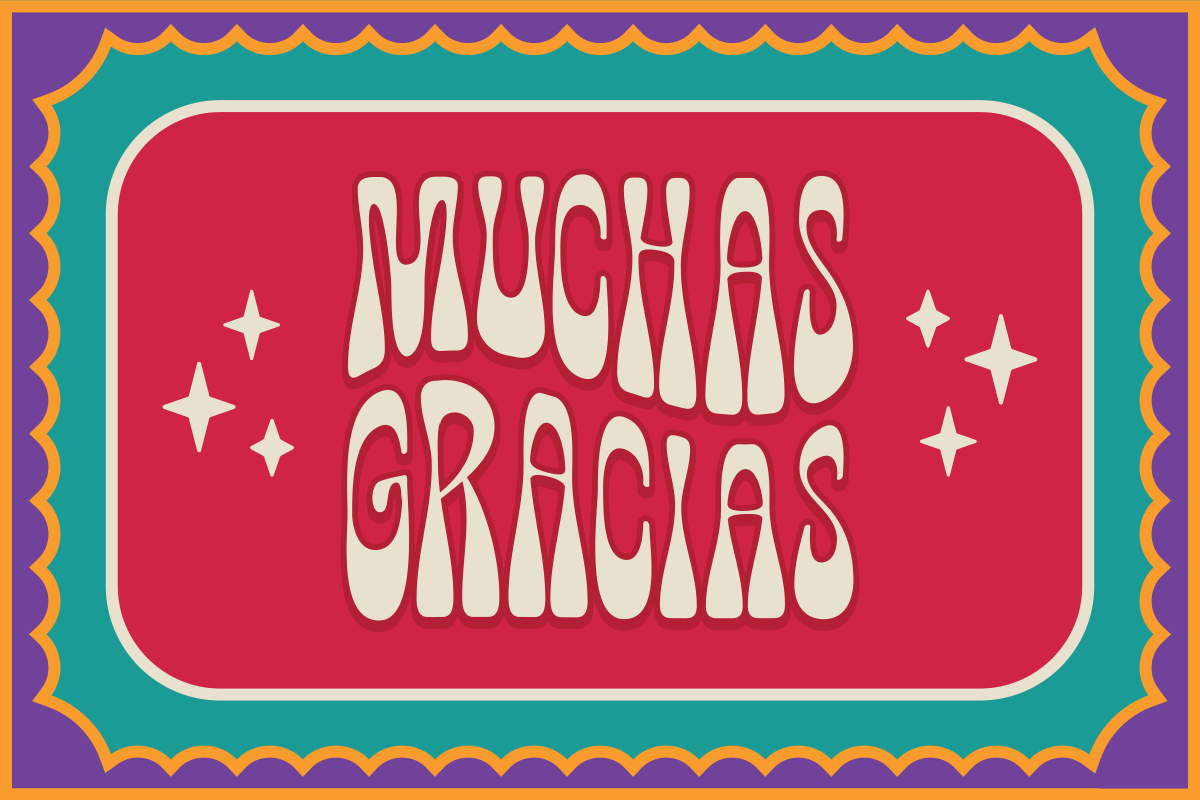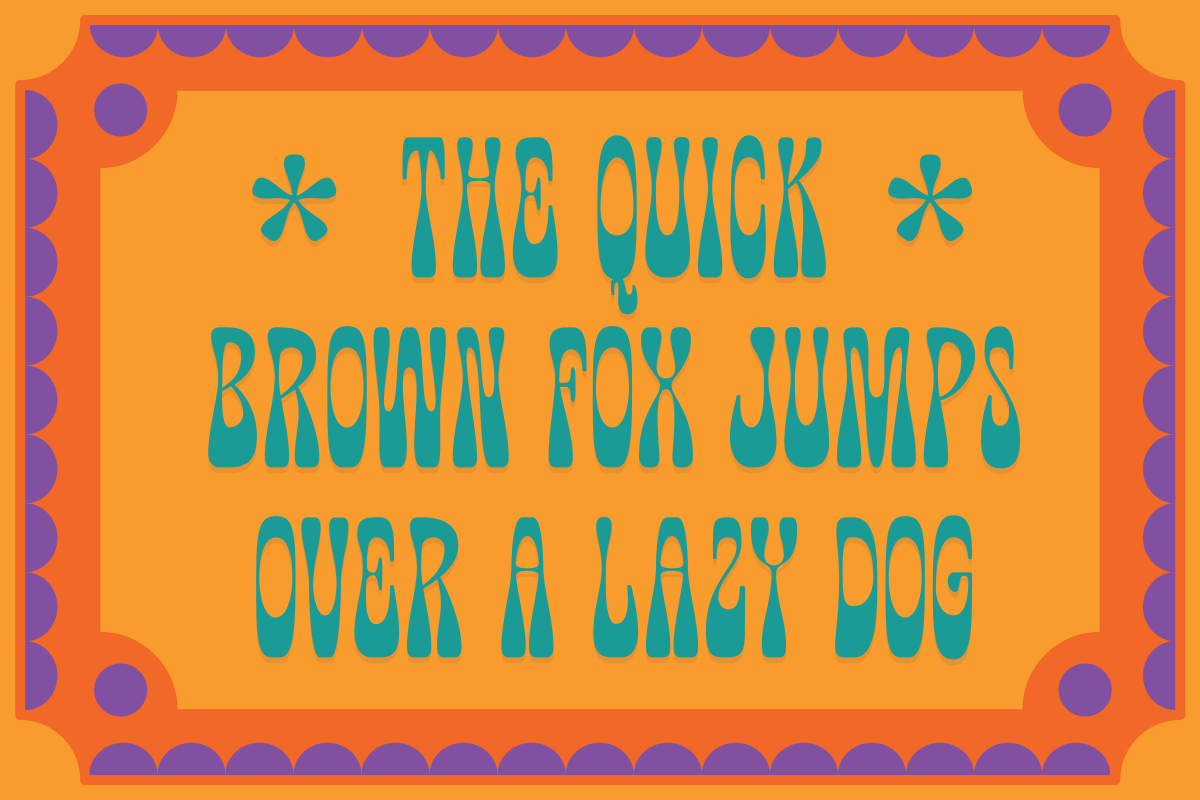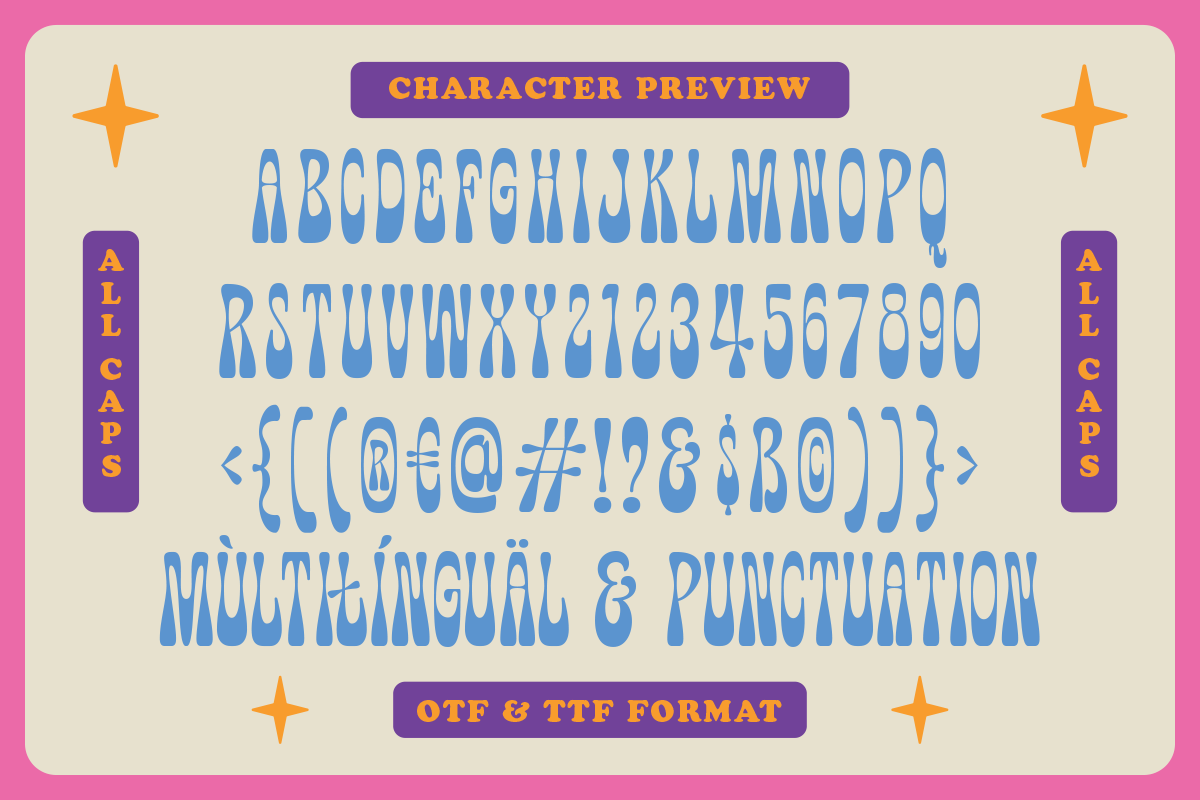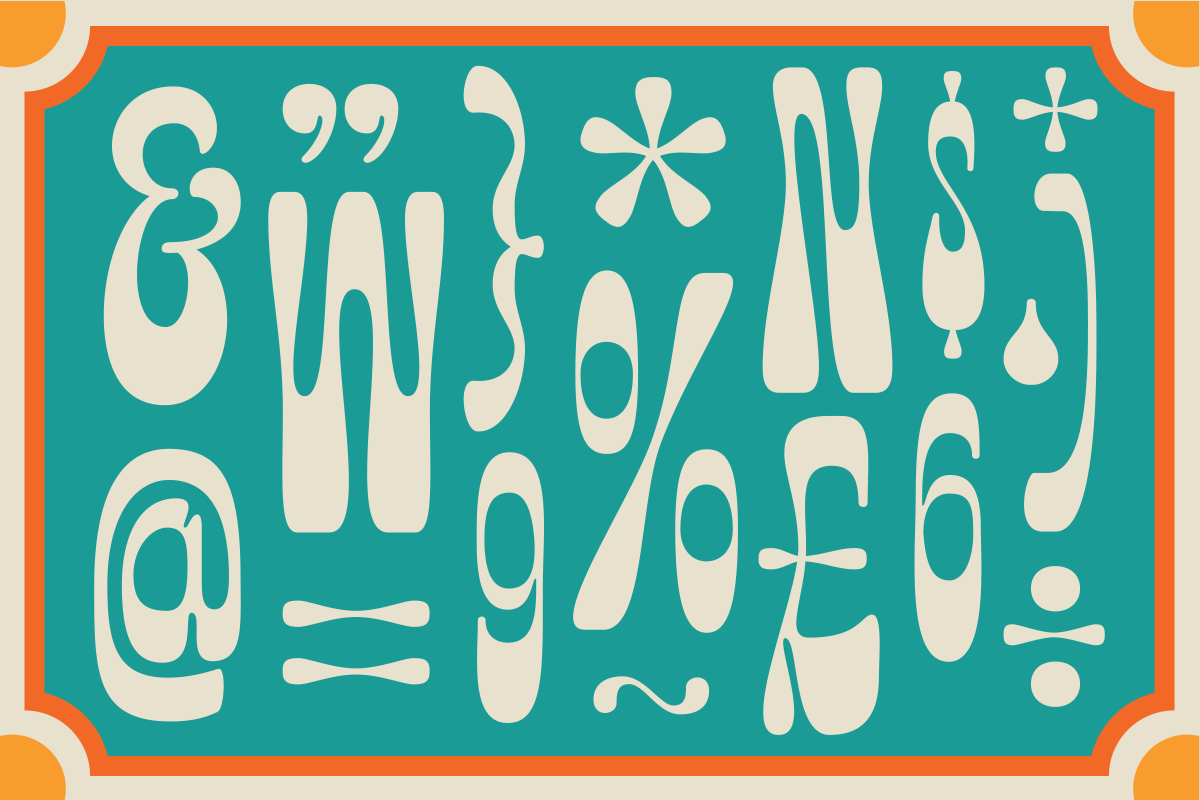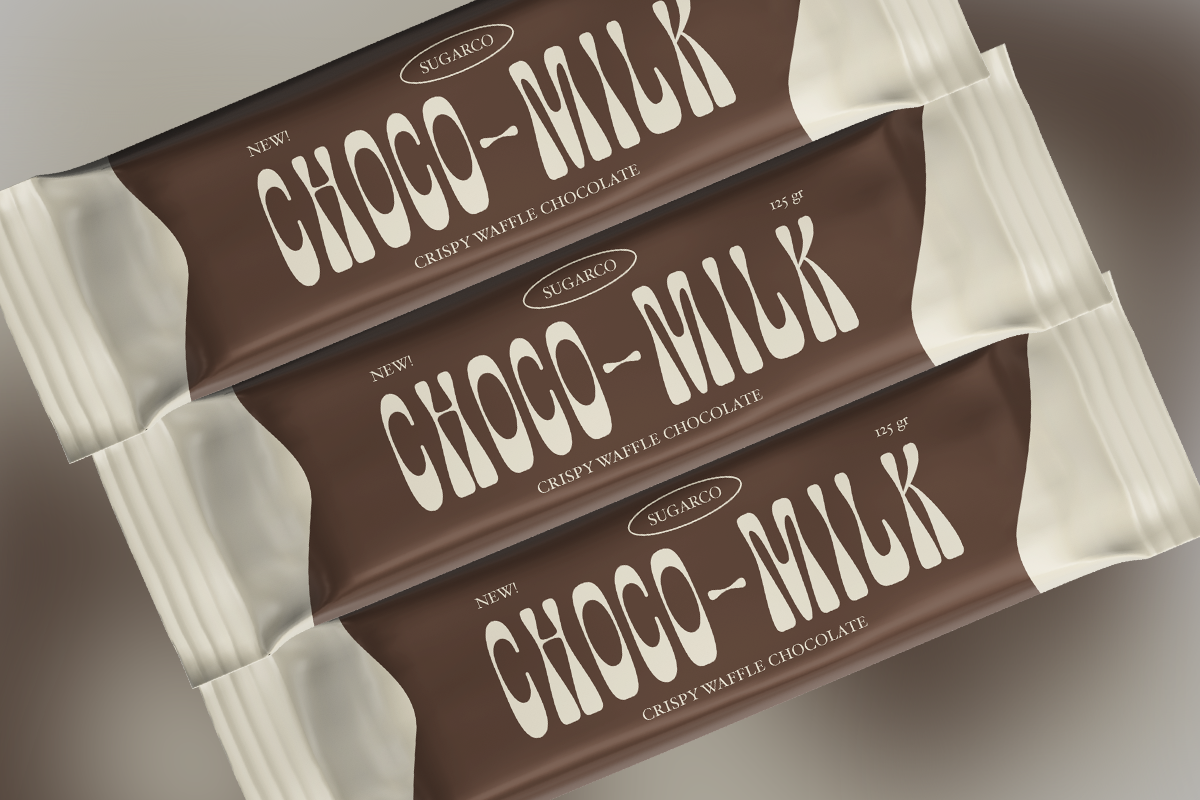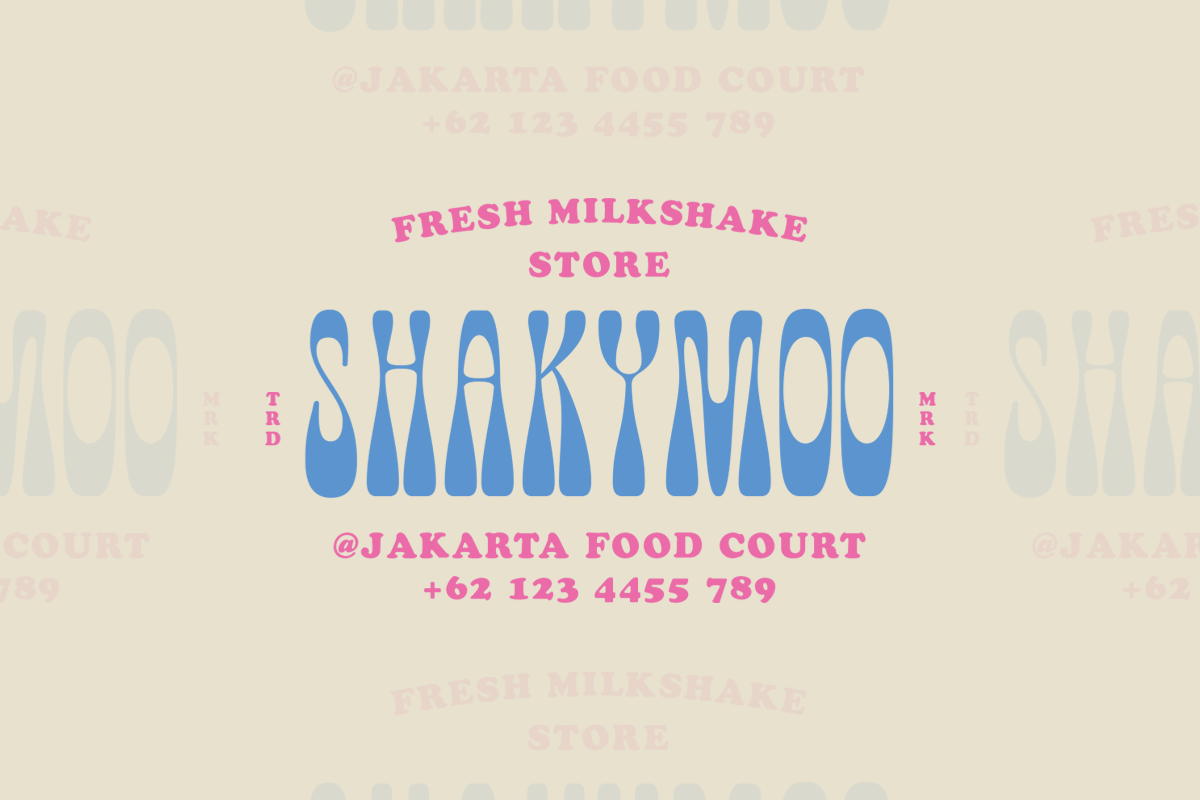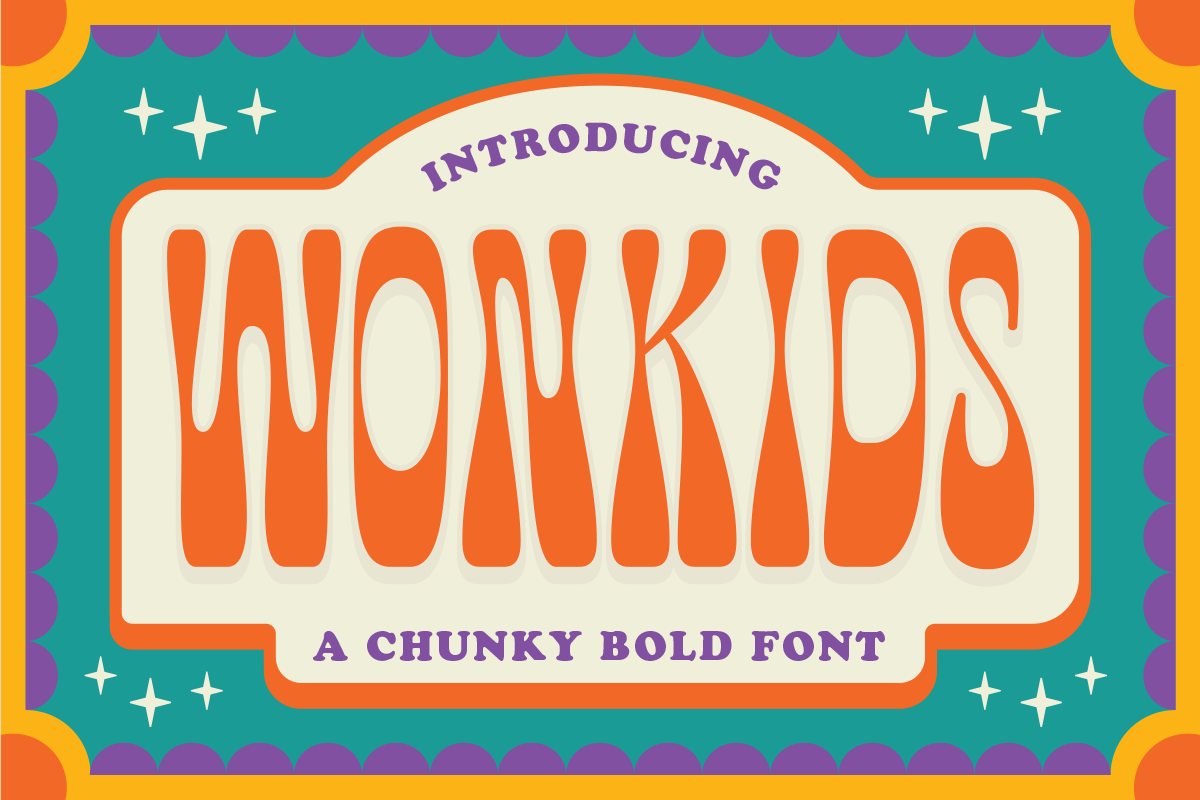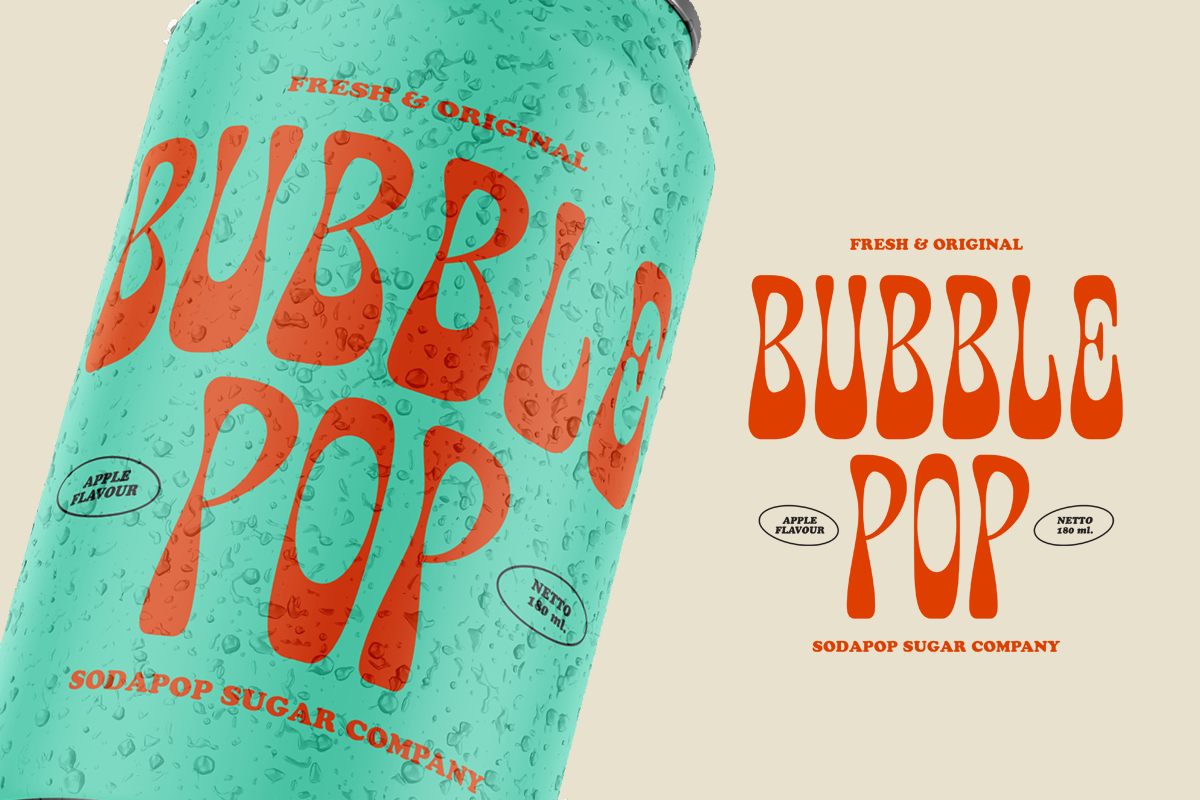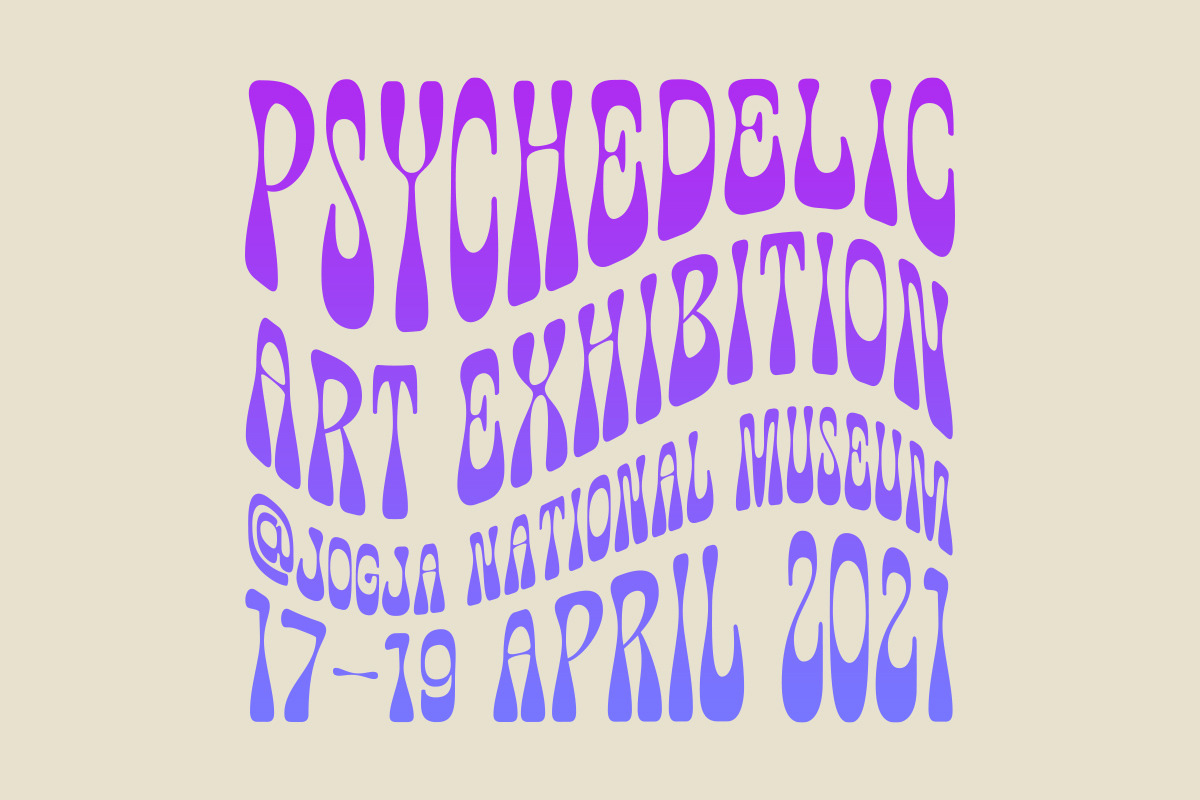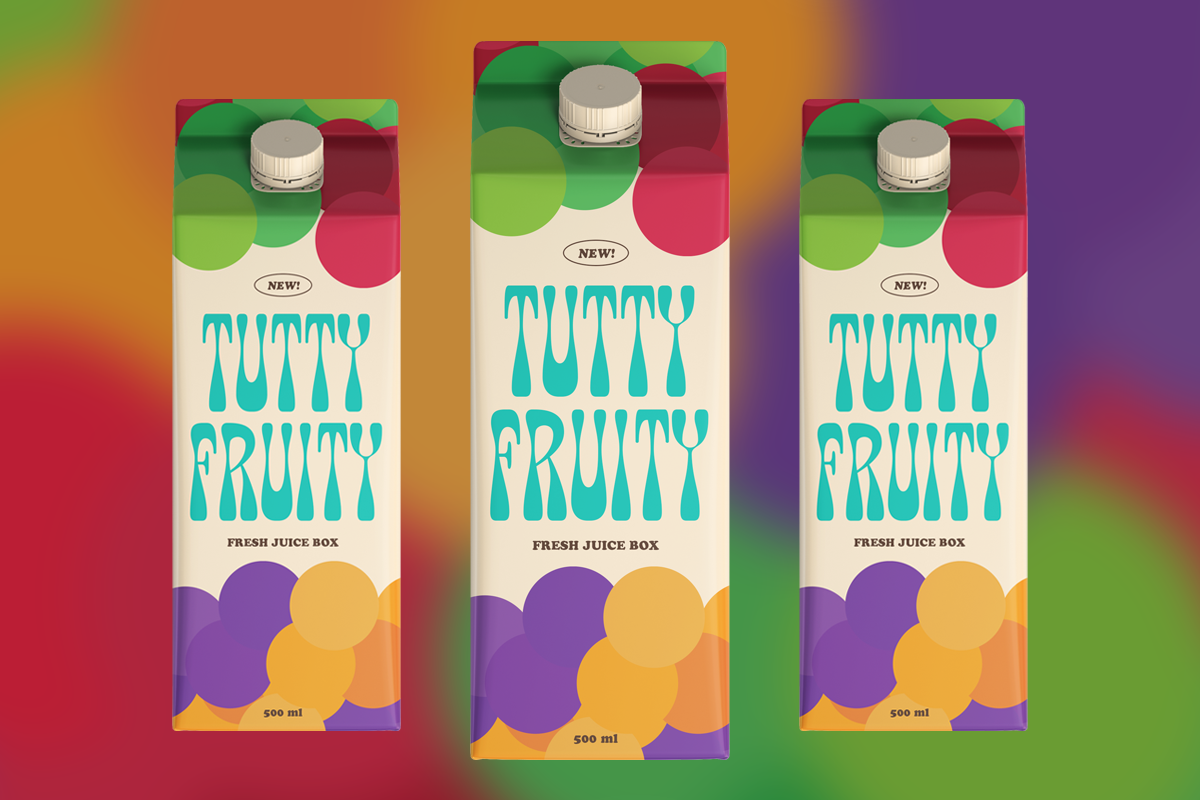
Wonkids Bold & Chunky Font
Introducing, The Wonkids. A semi psychedelic bold font suitable for display especially. Perfect for your daily project like for headline poster, packaging, or anything will be match.
Multilingual Support support many different languages 20+